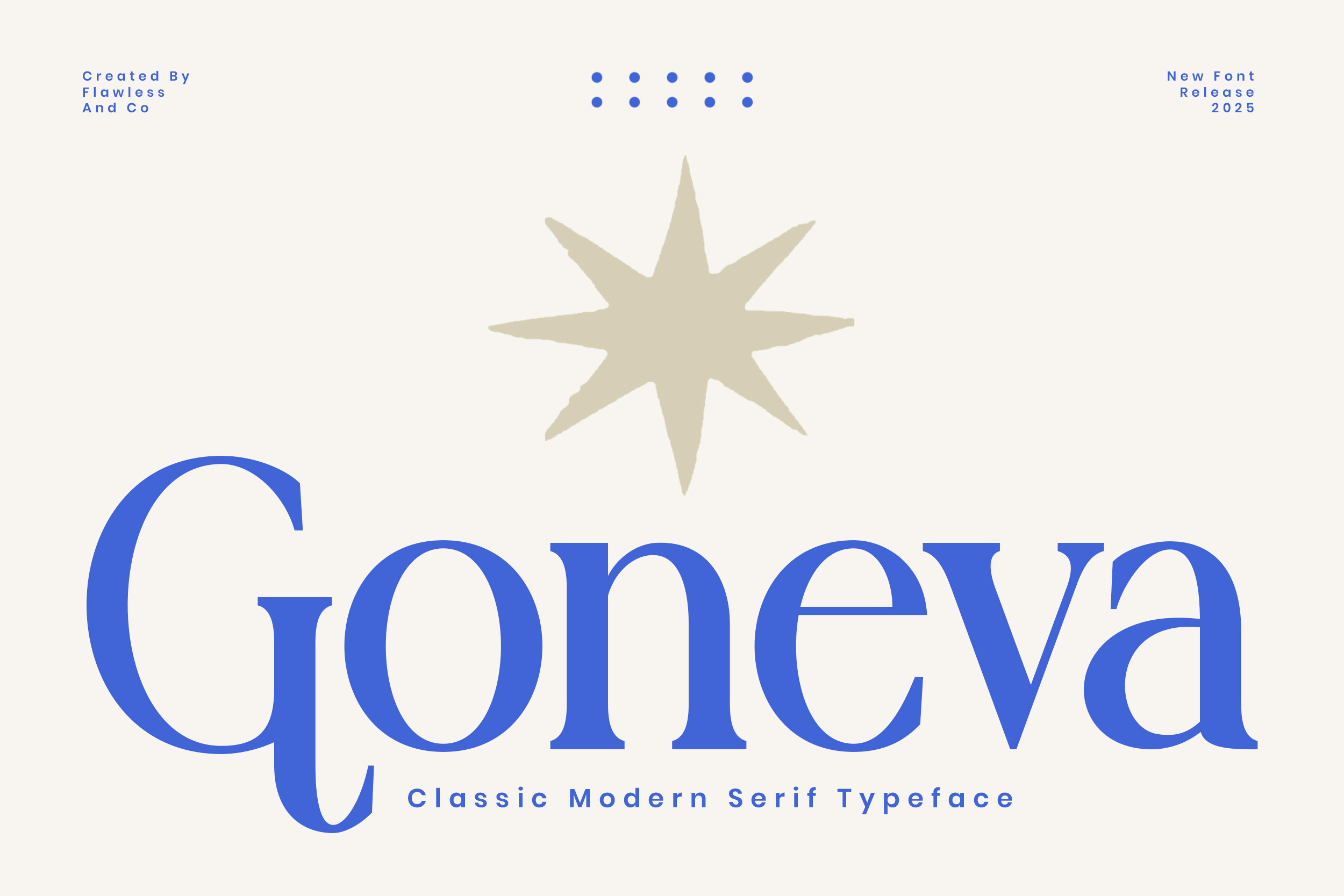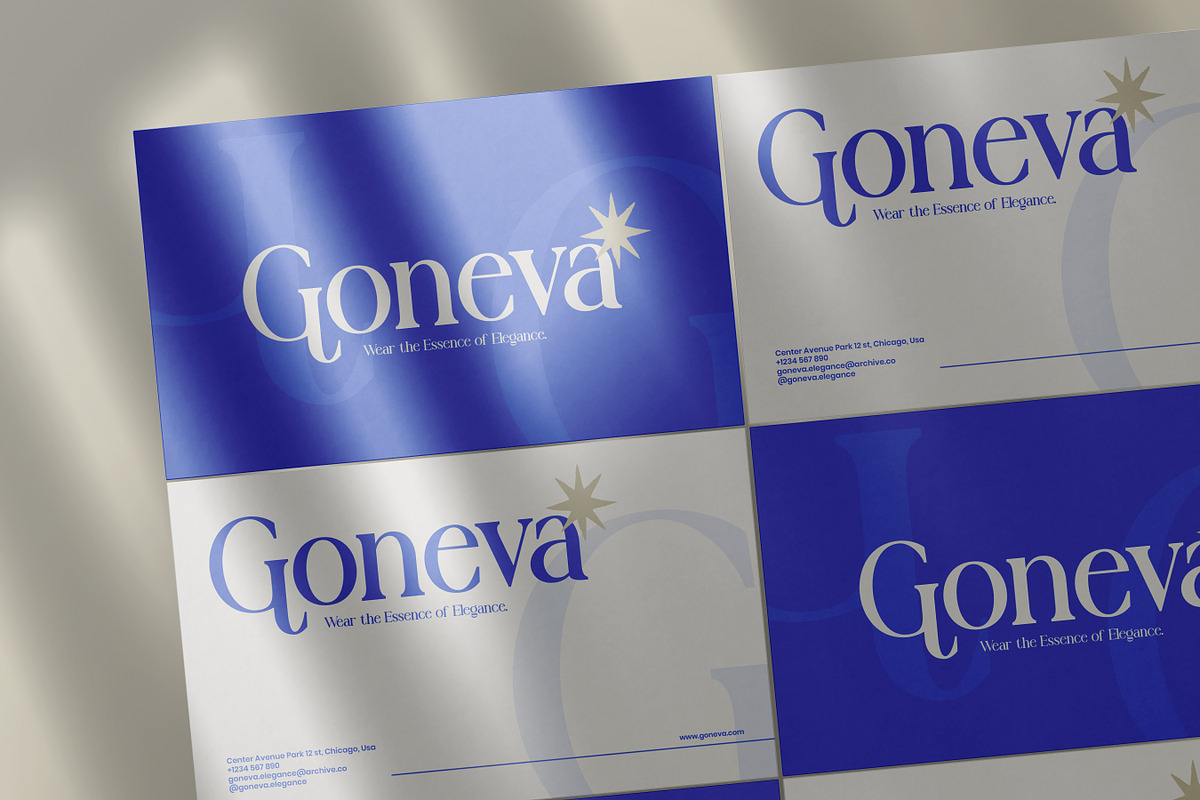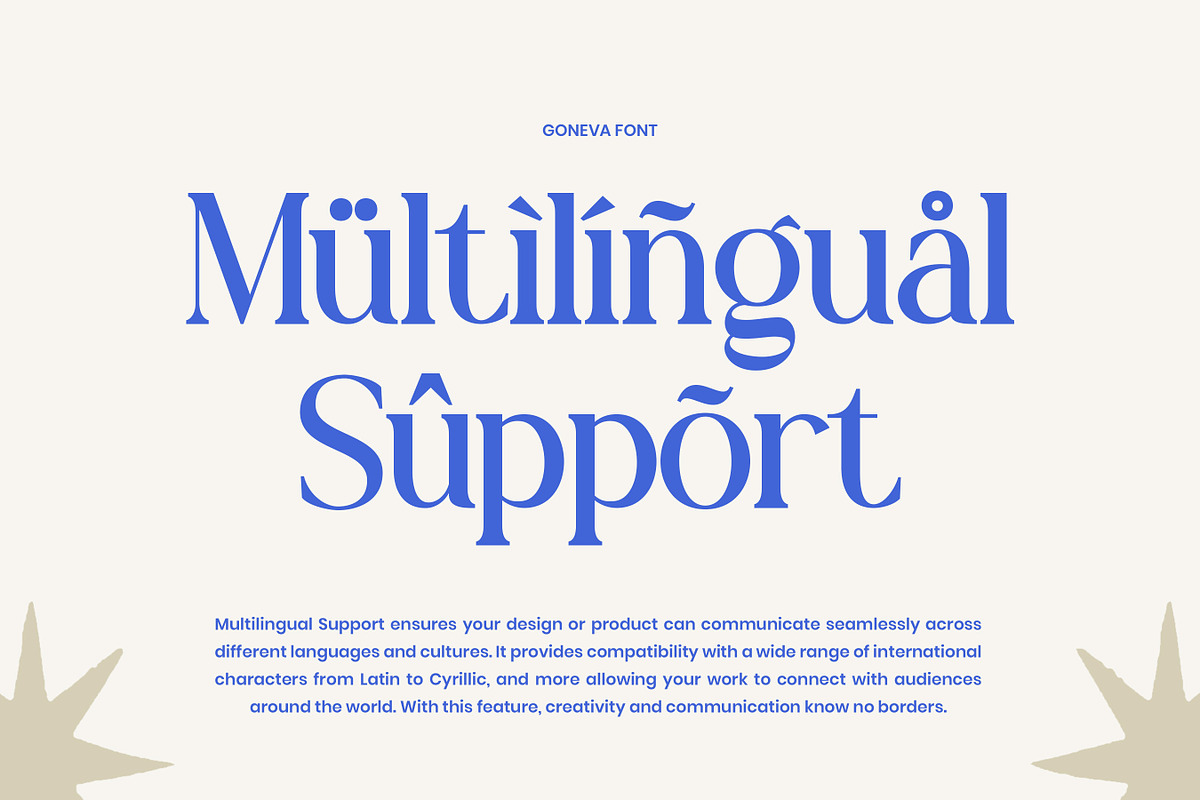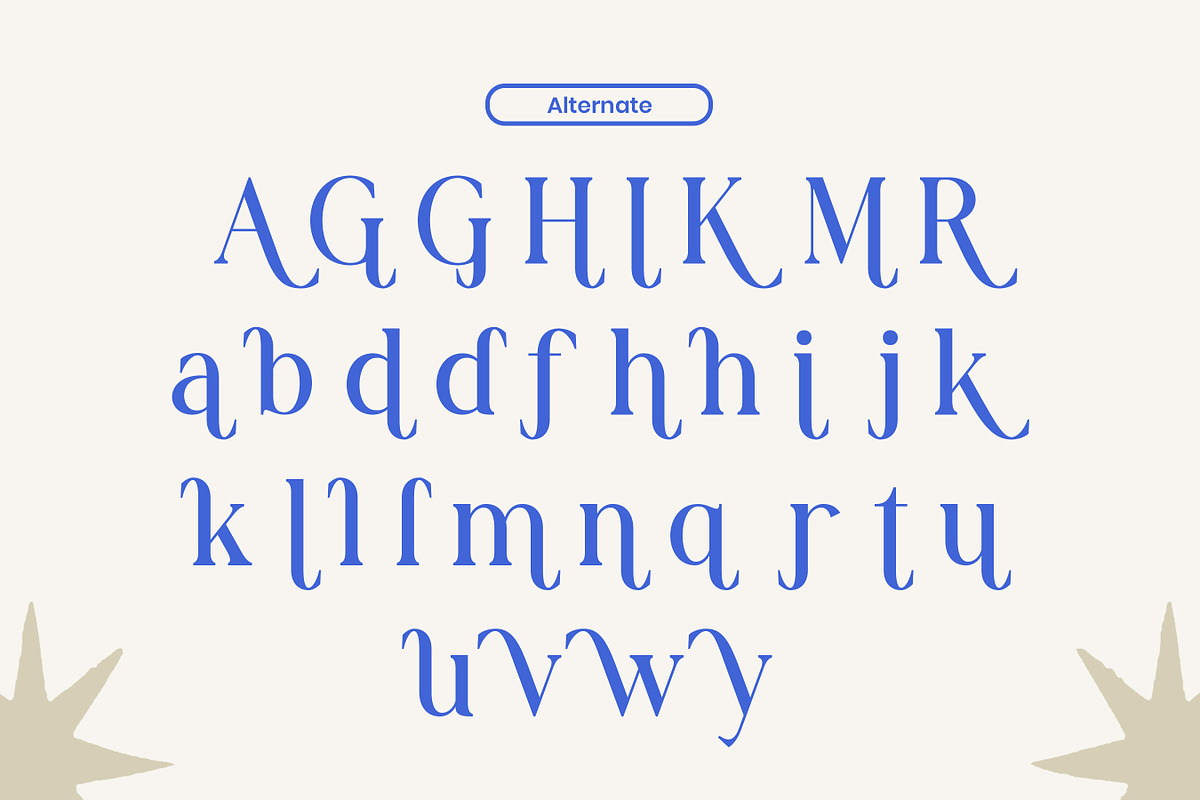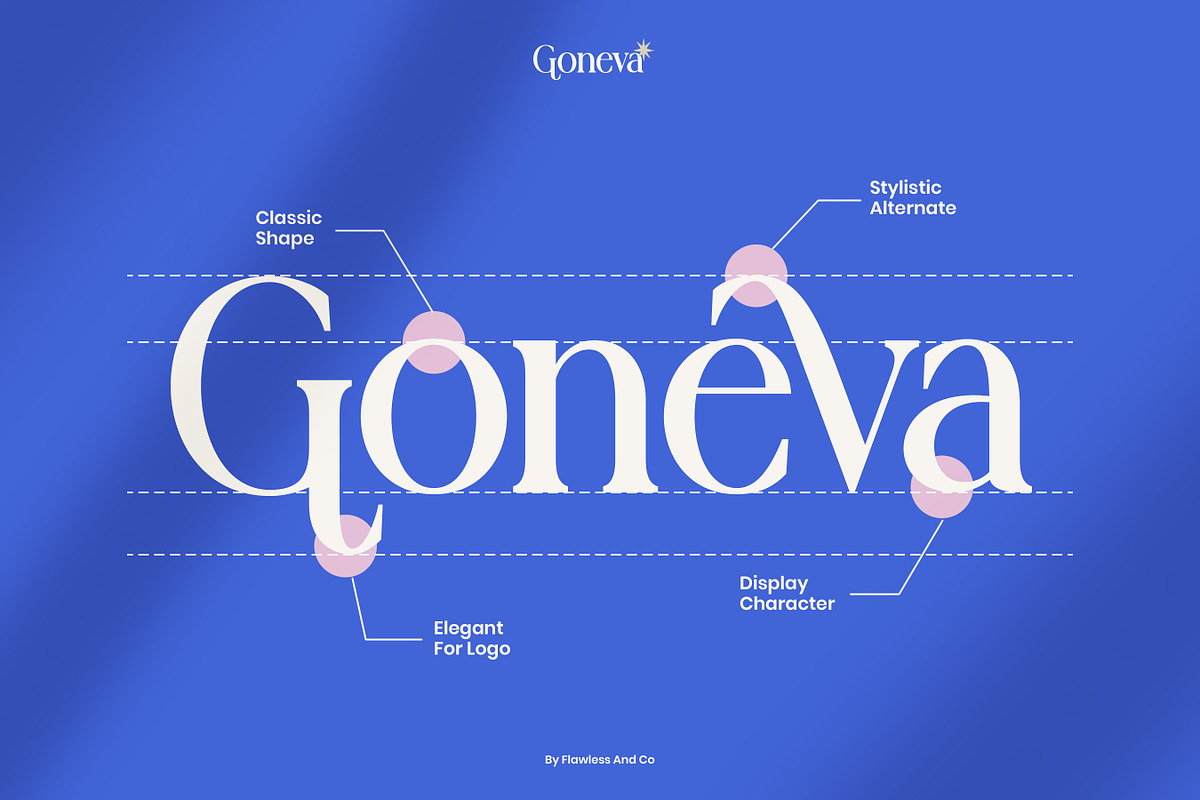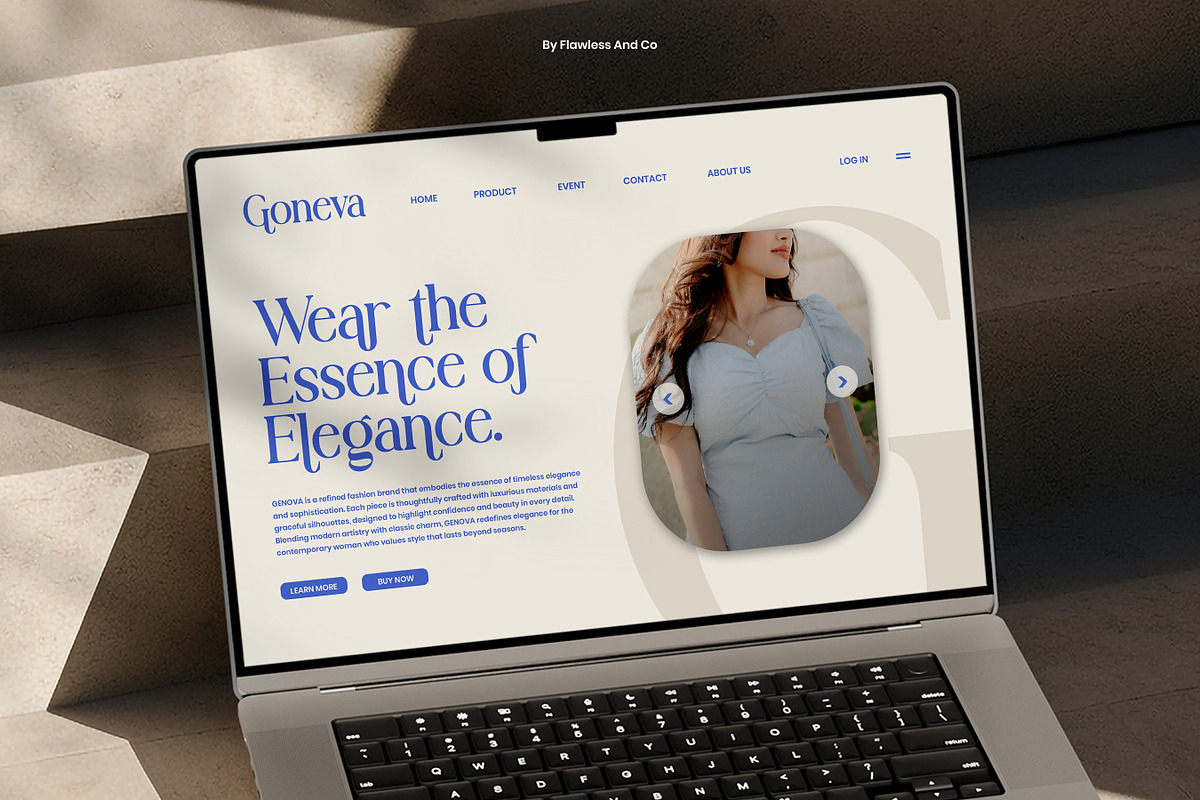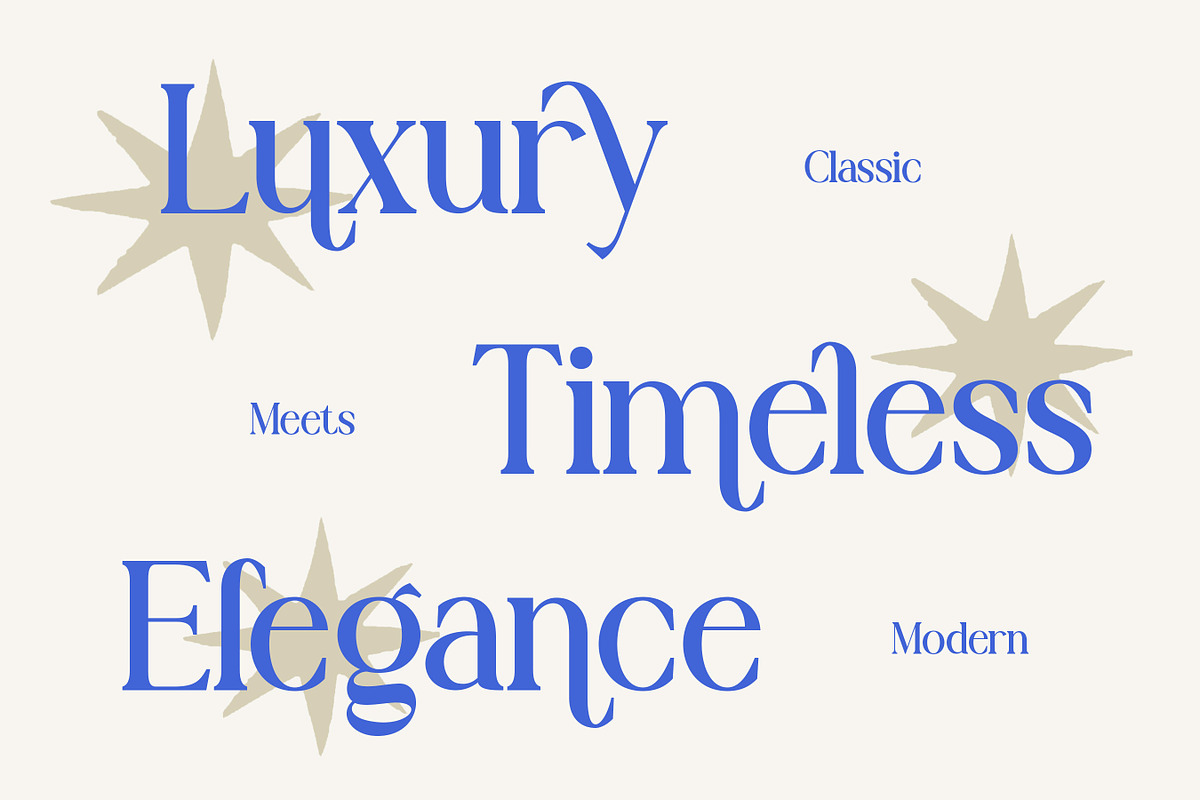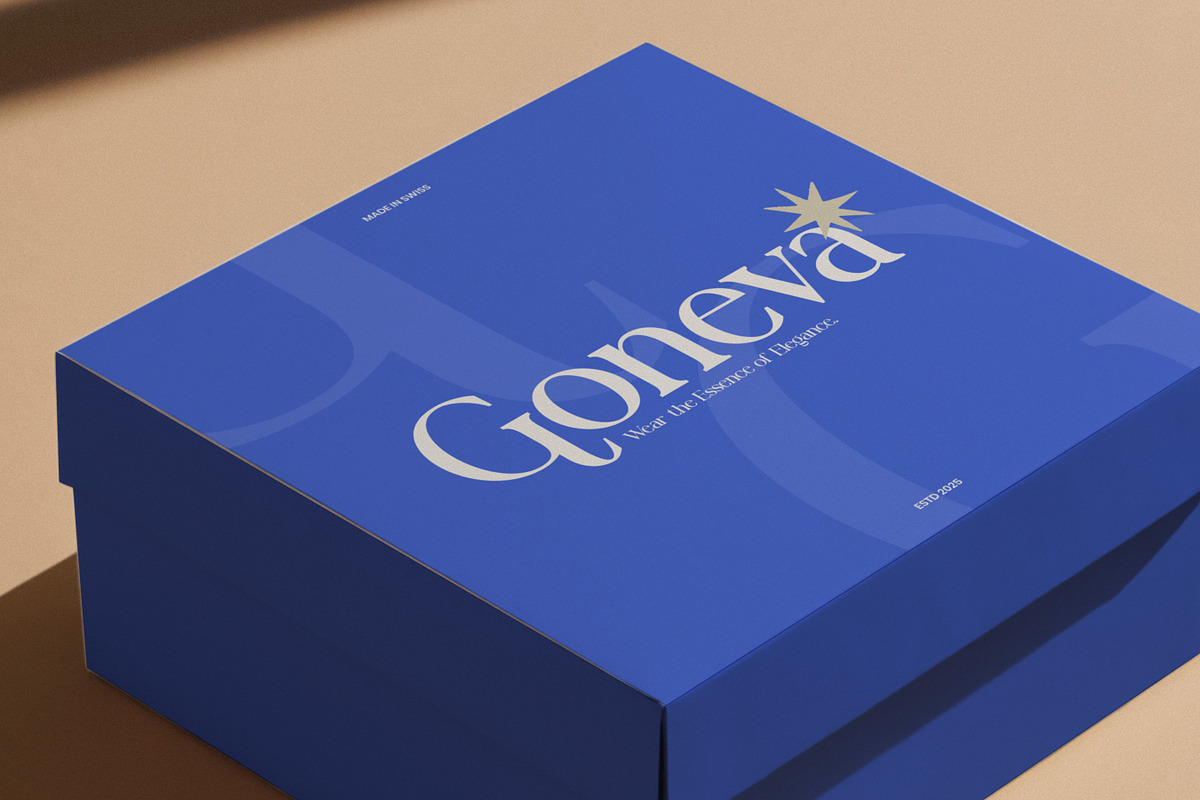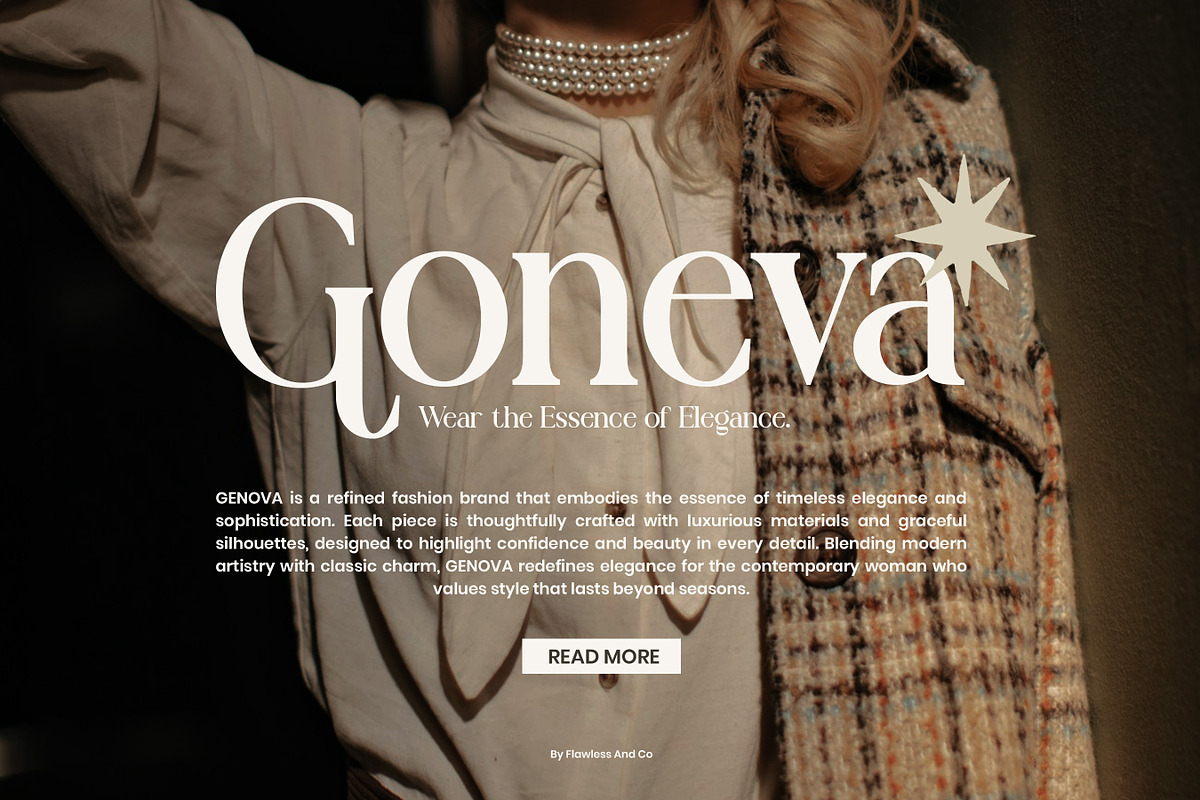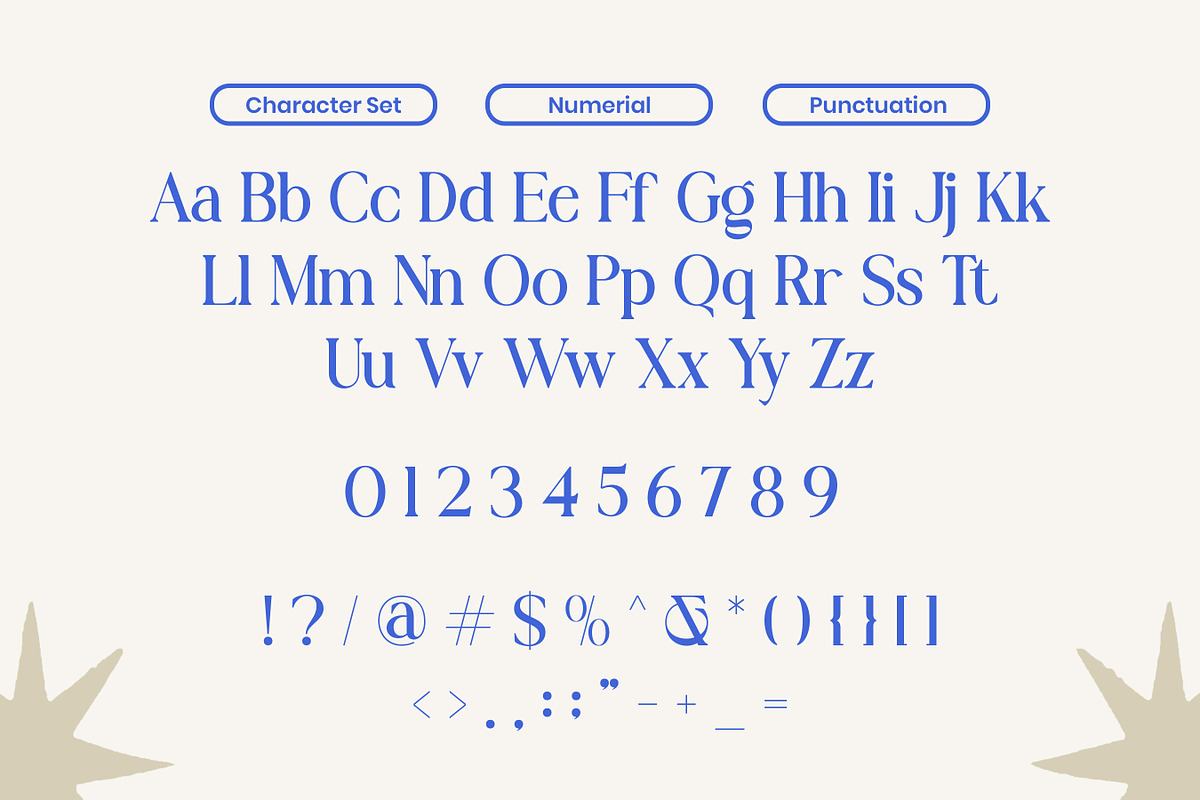
Goneva - Modern Serif Typeface Font
Goneva is a classic modern serif font that blends timeless sophistication with a clean, contemporary touch. Every curve and serif is thoughtfully crafted to create a graceful yet confident impression — perfect for designs that seek elegance and refinement. With its balanced proportions and stylish letterforms, Goneva shines in both display and text settings. Whether for branding, editorials, invitations, packaging, or logo design, Goneva adds a sense of modern luxury and effortless beauty to every project.
Who Should Use Goneva?
Goneva is the perfect choice for designers, creatives, and brands who want to express sophistication and timeless style. Whether you’re building a high-end fashion brand, crafting an elegant logo, or designing magazine layouts, Goneva brings a polished and professional look to your work.
It’s ideal for:
- Brand and logo designers seeking modern elegance
- Editorial and magazine layouts with a refined aesthetic
- Wedding invitations and luxury packaging
- Boutique businesses, lifestyle brands, and creative studios
A Must-Have Font for "Brand and Logo" Creators and Designers
Goneva stands out as a timeless serif font designed to elevate brand identities and logo creations. Its elegant curves and refined proportions make every letter exude confidence and class. Perfect for those who appreciate modern sophistication, Goneva transforms simple designs into memorable statements.
Why Choose Goneva for "Brand and Logo" Projects?
Goneva blends classic sophistication with modern aesthetics, making it a perfect choice for brands that aim to feel timeless yet contemporary. Its sharp serifs and smooth curves create a strong visual identity that communicates confidence, quality, and refinement. With balanced letterforms and elegant contrast, Goneva ensures readability while maintaining a distinctive personality. Whether used in luxury fashion branding, editorial layouts, packaging, or logo design, Goneva adds a touch of prestige and artistic harmony — helping your brand stand out with effortless elegance.
Suitable For:
- Perfect for crafting modern and timeless logo marks that convey elegance and confidence.
- Ideal for premium branding projects such as fashion labels, boutique studios, and lifestyle brands.
- Works beautifully in magazine headlines, cover titles, and typographic layouts with a sophisticated feel.
- Packaging Design, Adds a refined and professional touch to luxury product packaging, cosmetics, or artisanal goods.
- Wedding Stationer, Perfect for invitations, name cards, and menus that require elegance and class.
- Posters & Signage, Great for statement headlines or promotional materials that need strong visual presence.
- Website & Social Media, Enhances digital branding with a polished and stylish typographic voice.